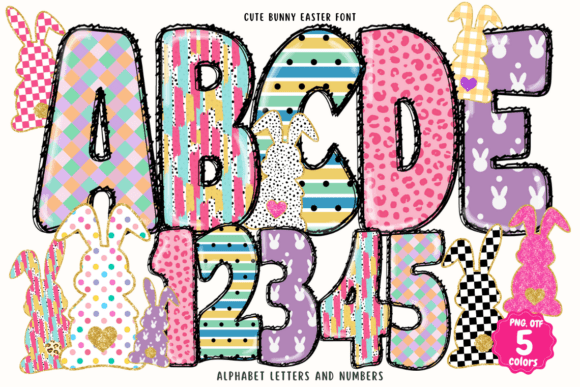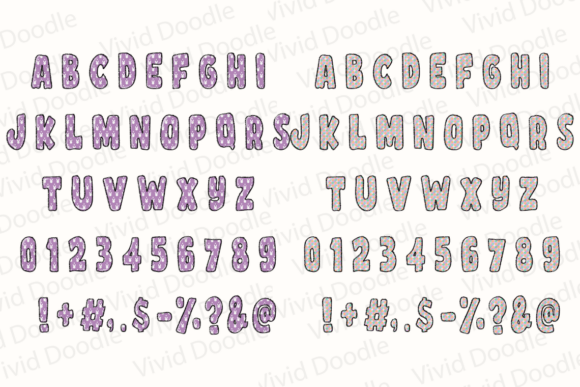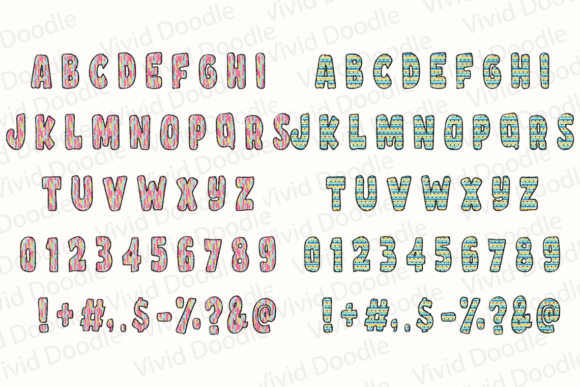
Cute Bunny Easter Font
About the Cute Bunny Easter Font
We are excited to introduce Cute Bunny Easter Font, a must-have typeface for any serious designer. Cute Bunny Easter Font is an adorable and festive typeface that captures the joy of Easter! With playful, rounded letterforms and a charming bunny-inspired touch, this font is perfect for celebrating the season of spring, egg hunts, and sweet treats. Ideal for Easter-themed invitations, greeting cards, school projects, posters, decorations, and creative designs, Cute Bunny Easter Font brings a warm and cheerful vibe to any project. Whether you’re designing for kids, party printables, or social media graphics, this font will add a delightful, whimsical charm to your work!